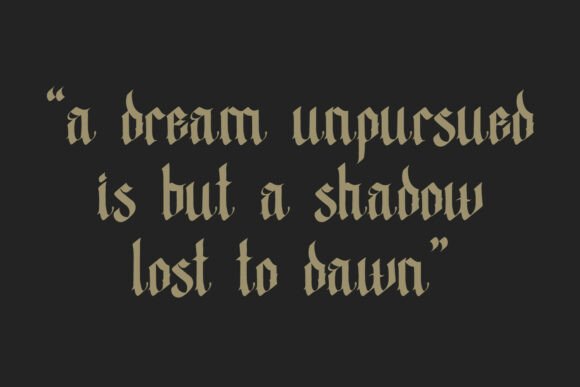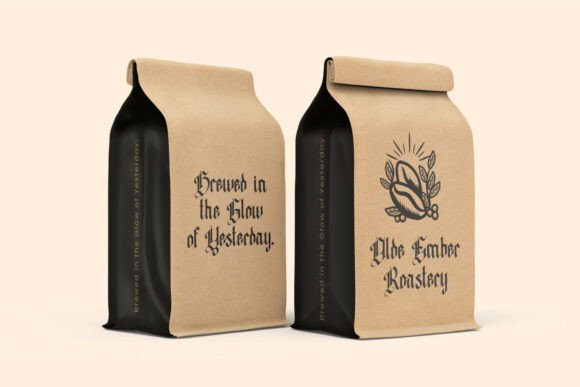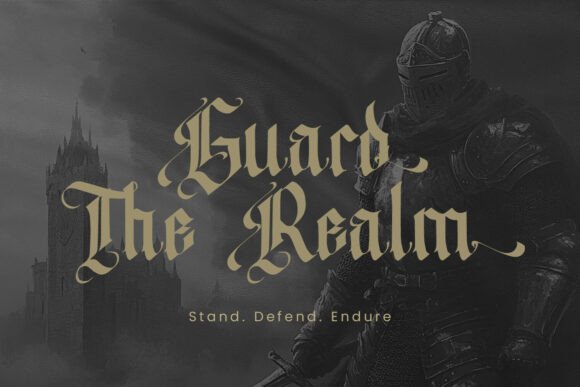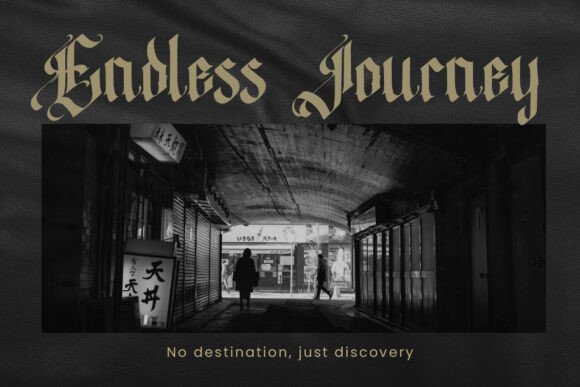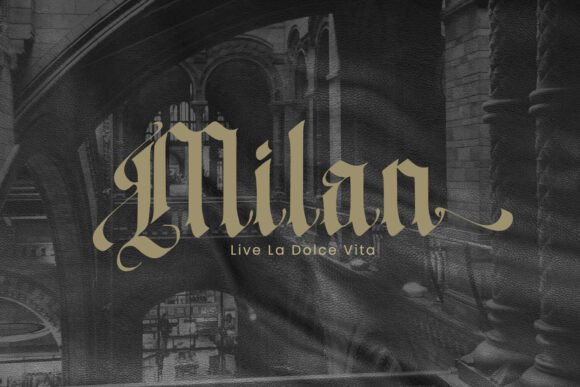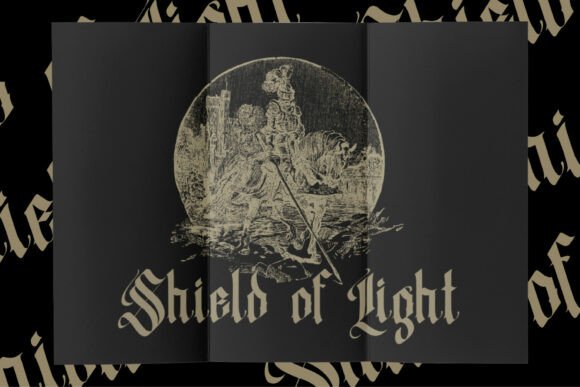
Introduction to Moctavo Font
As designers, we’ve all experienced that moment of creative block, staring at a blank canvas, waiting for the perfect font to bring our vision to life. The search for the perfect design resource can be a daunting task, but what if you stumbled upon a font that not only elevates your project but also adds a touch of uniqueness and power? Enter the Moctavo Font, a Blackletter Display Font that expertly blends traditional gothic artistry with a modern twist.
Engineered to make a statement, this high-quality font is a game-changer for designers seeking to add an extra layer of sophistication to their creative project. With its robust character and transparent background, the Moctavo Font is the perfect addition to any design, whether you’re working on a free download or a high-end commercial project.
Key Features of Moctavo Font
- Moctavo Font is designed to be highly legible, even at small font sizes, ensuring that your creative project’s text remains clear and easy to read.
- With its modern and sleek design, Moctavo Font is perfect for a wide range of creative projects, from branding and marketing materials to digital products and websites.
Honest Review: Moctavo Font
What works well: ✨ The Moctavo Font features a high-quality design that’s perfect for any creative project. Its clean and modern look makes it an excellent choice for logos, branding, and digital products. Additionally, the font comes with a transparent background, which gives designers the flexibility to layer it over different backgrounds.
⚠️ One limitation I found is that the Moctavo Font is not as extensive as some other font families. However, its simplicity and clean design make it a great choice for projects where you need a straightforward, modern look.
Common Use Cases for Moctavo Font
The Moctavo Font is suitable for a variety of design projects, including graphics, logos, and typography-based designs. Its transparent background makes it ideal for creating overlays and other design elements that require a clear background.